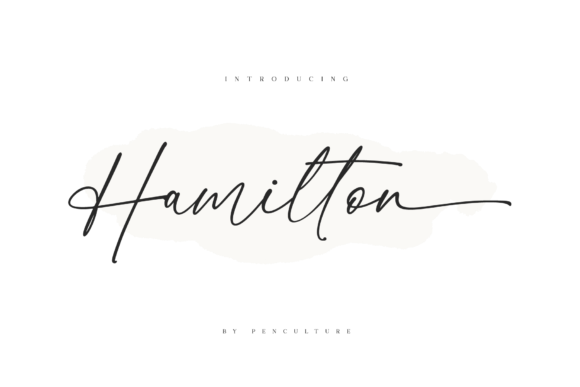
Introducing Hamilton Font, the epitome of modern elegance and sophistication! Crafted by the talented team at Pen Culture, this exquisite script font is designed to captivate hearts and make a lasting impression. With its flawless ligatures and delightful alternates, Hamilton offers a unique and enchanting touch to any creative project.
Are you planning a dreamy wedding? Look no further! Hamilton is the ultimate choice for wedding signs that will leave your guests in awe. Its graceful strokes and romantic charm bring an air of timeless beauty to your invitations, making them truly unforgettable.
But Hamilton doesn't stop there. Its versatility knows no bounds! Whether you're designing fashion cards, branding materials, or even social media posts, this font effortlessly adds a touch of class and allure. Let your creativity soar as you explore the endless possibilities this font has to offer.